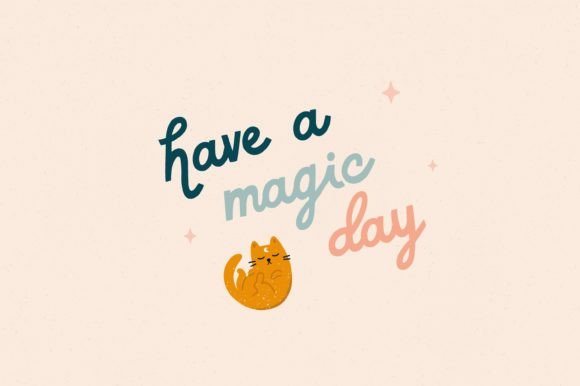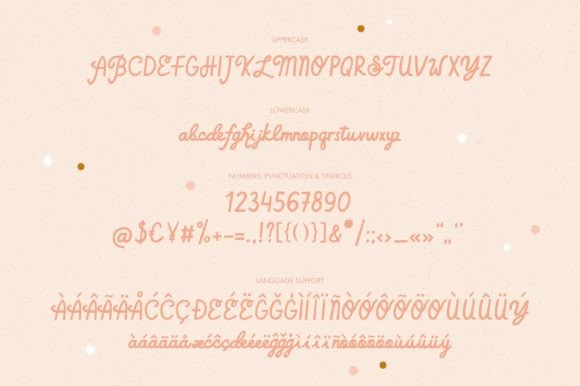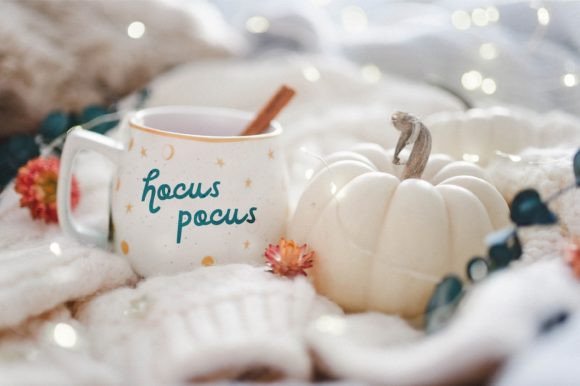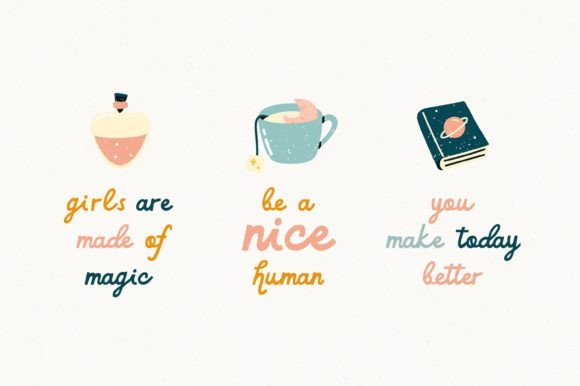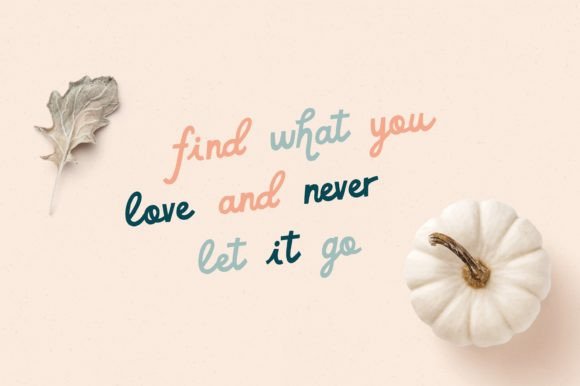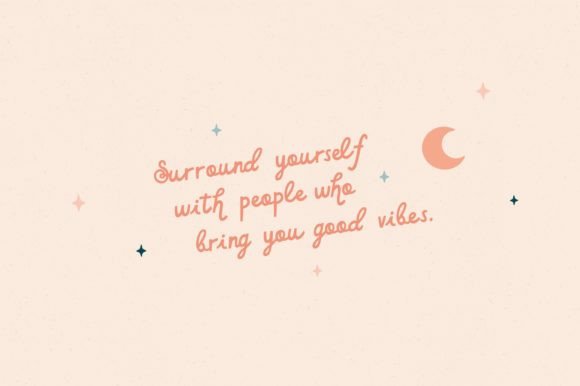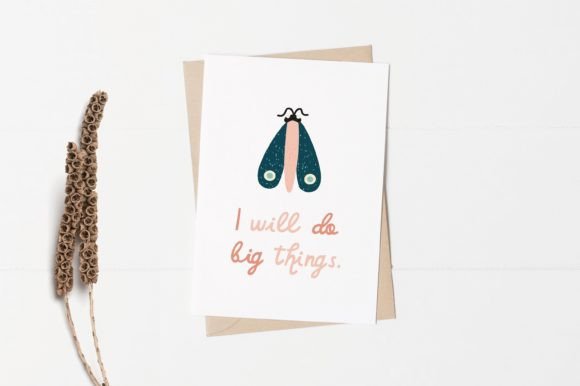
Hocus Pocus Font
About Hocus Pocus Font
“Hocus Pocus” is introduced as a fun and playful hand-drawn typeface, adding a whimsical touch to your creative projects. This versatile font is well-suited for a range of applications, including logos, quotes, invitations, greeting cards, journals, posters, and more. With its playful charm, “Hocus Pocus” can seamlessly transition from child-friendly designs to brochure selections, making it a versatile and easy-to-use choice for various design needs.
The hand-drawn nature of “Hocus Pocus” contributes to its playful and friendly aesthetic, adding character to your designs. Whether you’re working on projects that require a touch of whimsy or aiming for a lighthearted and approachable look, this font provides the flexibility to play with different design elements.
Its adaptability makes “Hocus Pocus” suitable for a variety of creative endeavors. From crafting eye-catching logos to designing expressive quotes, this font injects a sense of fun into your visual communication. It can also enhance the charm of invitations, greeting cards, journals, posters, and other projects where a playful and hand-drawn typeface is desired.
In summary, “Hocus Pocus” is a lively and engaging typeface that effortlessly adds a fun and playful element to your designs. Whether you’re working on projects for children or seeking to infuse a sense of whimsy into your creative work, this font provides an easy-to-use and versatile option for a wide range of design applications.